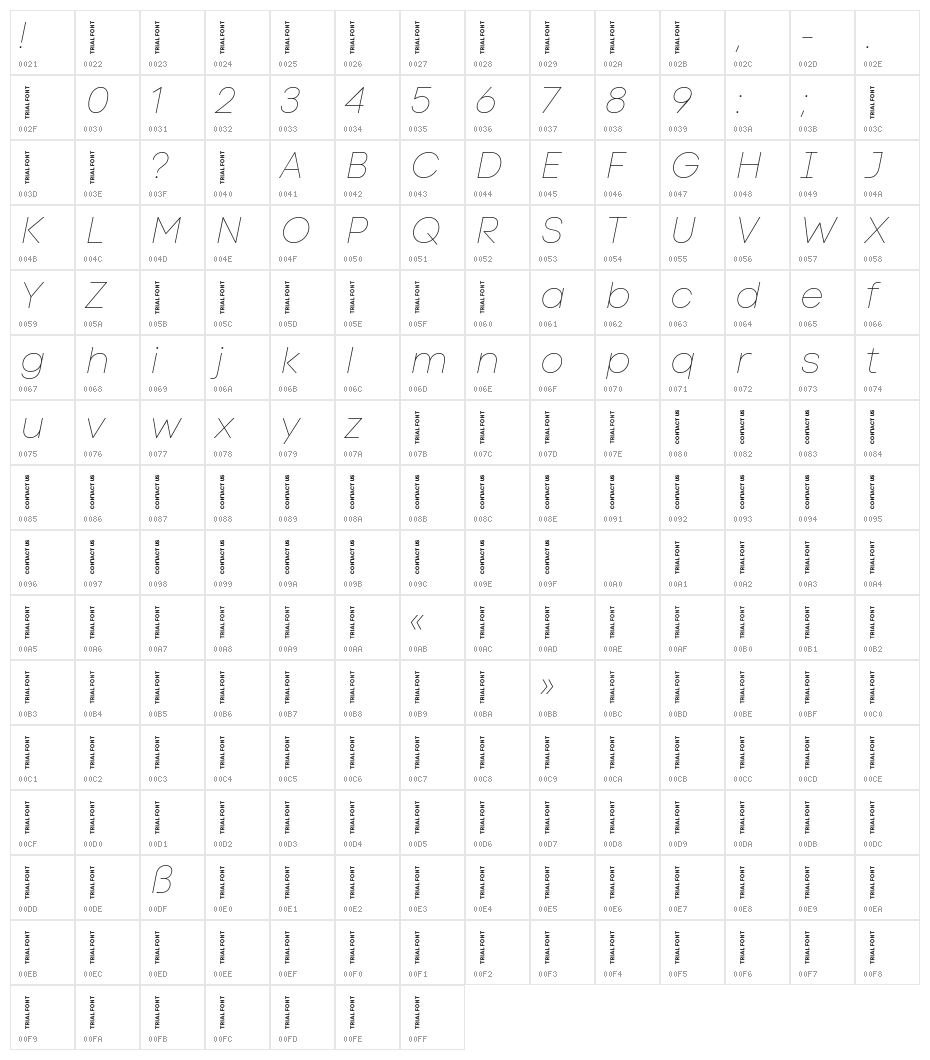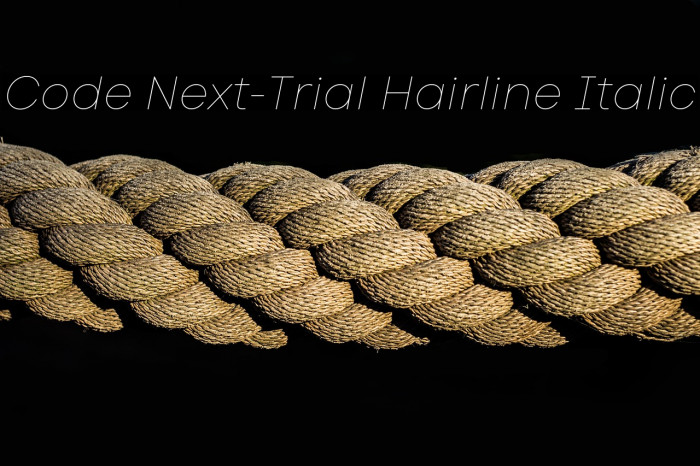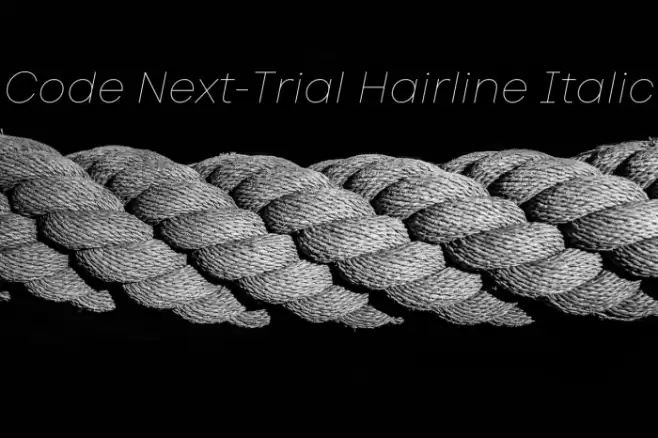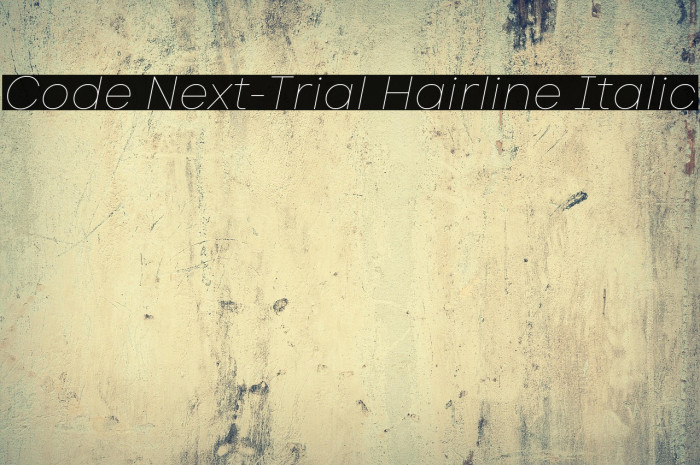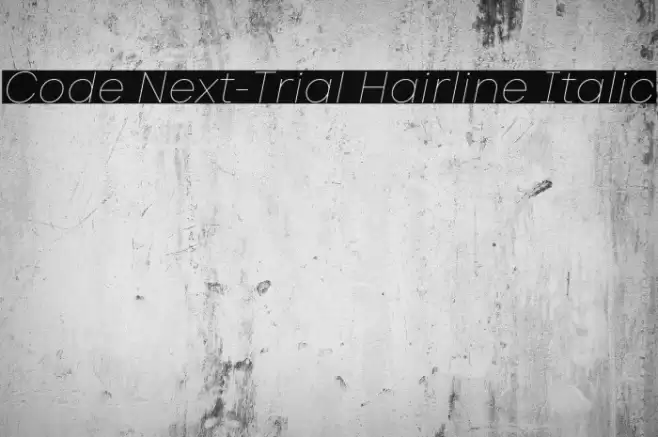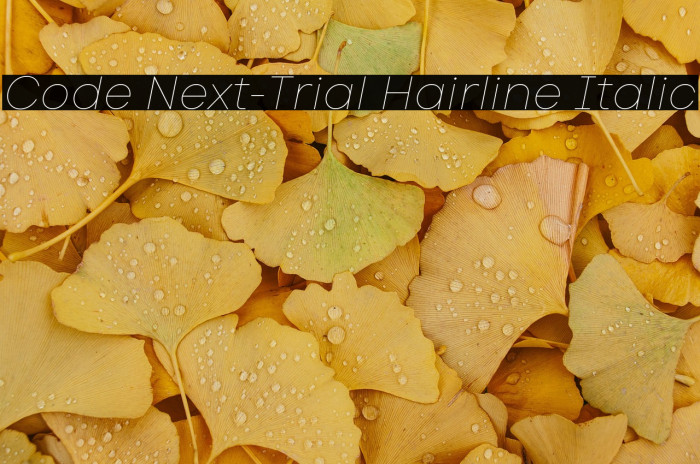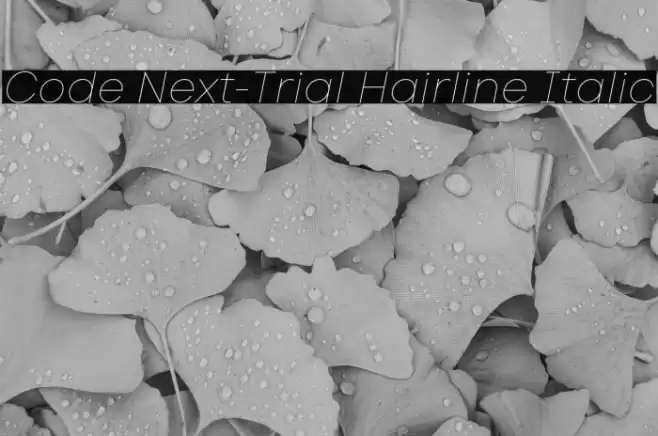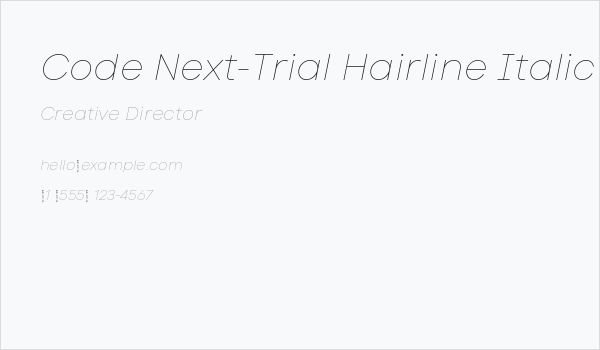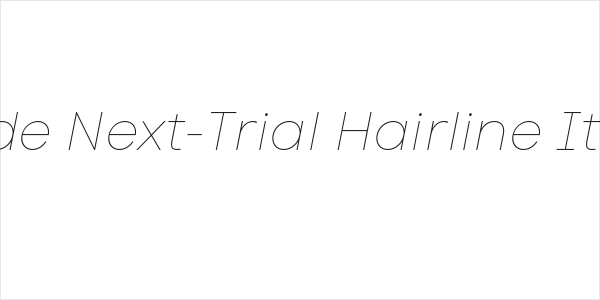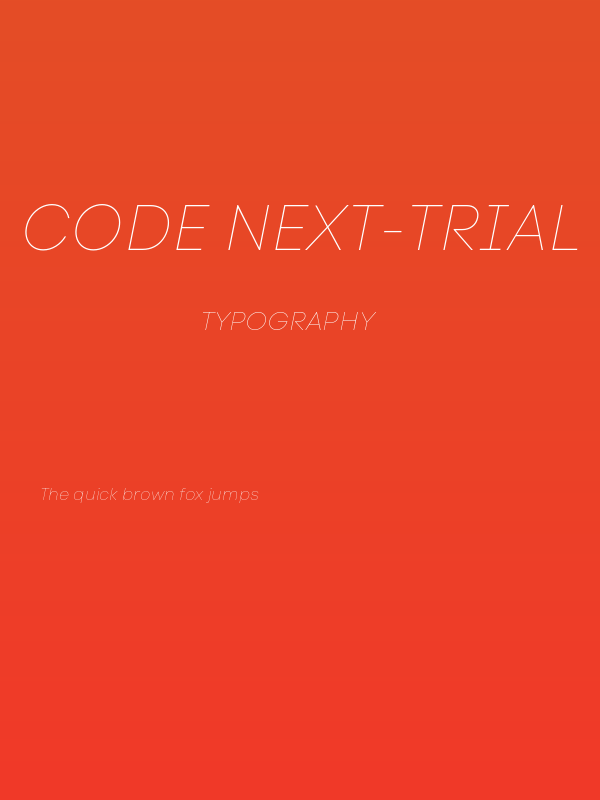
Code Next-Trial Hairline Italic Font
Code Next-Trial Hairline Italic Description
This font features a sleek and modern design with a hairline weight, giving it an elegant and minimalist appearance. The italic style adds a sense of motion and sophistication, making it suitable for contemporary design projects. The characters are well-spaced, providing a clean and airy feel. The uppercase and lowercase letters maintain a consistent style, with smooth curves and sharp angles that enhance readability. The numerals and special characters are designed to match the overall aesthetic, ensuring a cohesive look across all text elements.
| Proposed Projects | Ideal for fashion magazines, luxury branding, minimalist websites, and modern editorial layouts. |